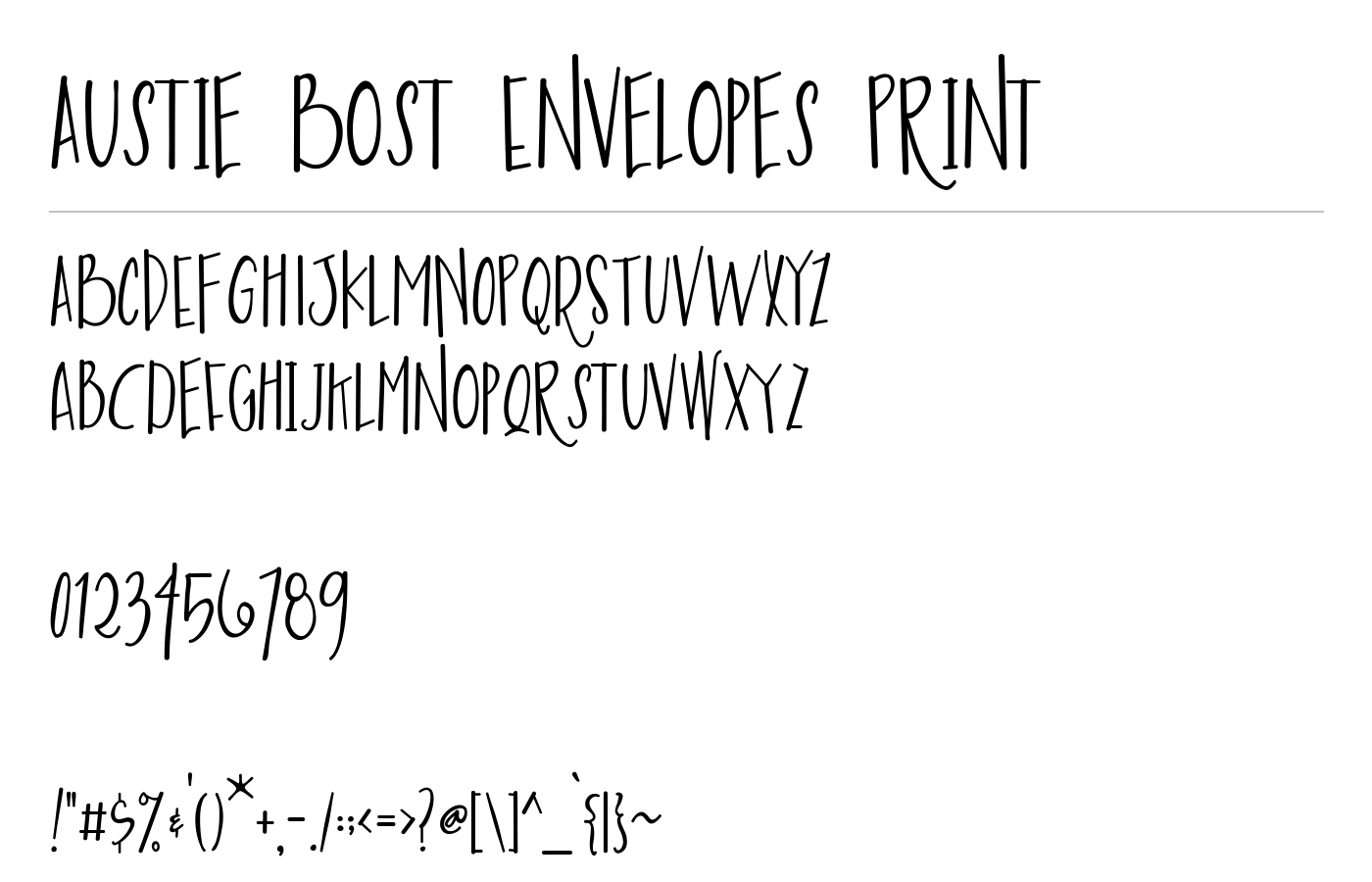
Austie Bost Envelopes Print is a playful, hand-drawn sans serif font characterized by its tall, narrow letterforms and casual, slightly quirky style. Its thin strokes and irregular details give it a friendly, approachable feel, making it ideal for creative projects that want to convey personality and warmth, such as invitations, casual branding, or informal editorial layouts. This font works beautifully where a personal, handmade touch is desired over formal or traditional looks.
Austie Bost Envelopes Print Font
About Austie Bost Envelopes Print Font